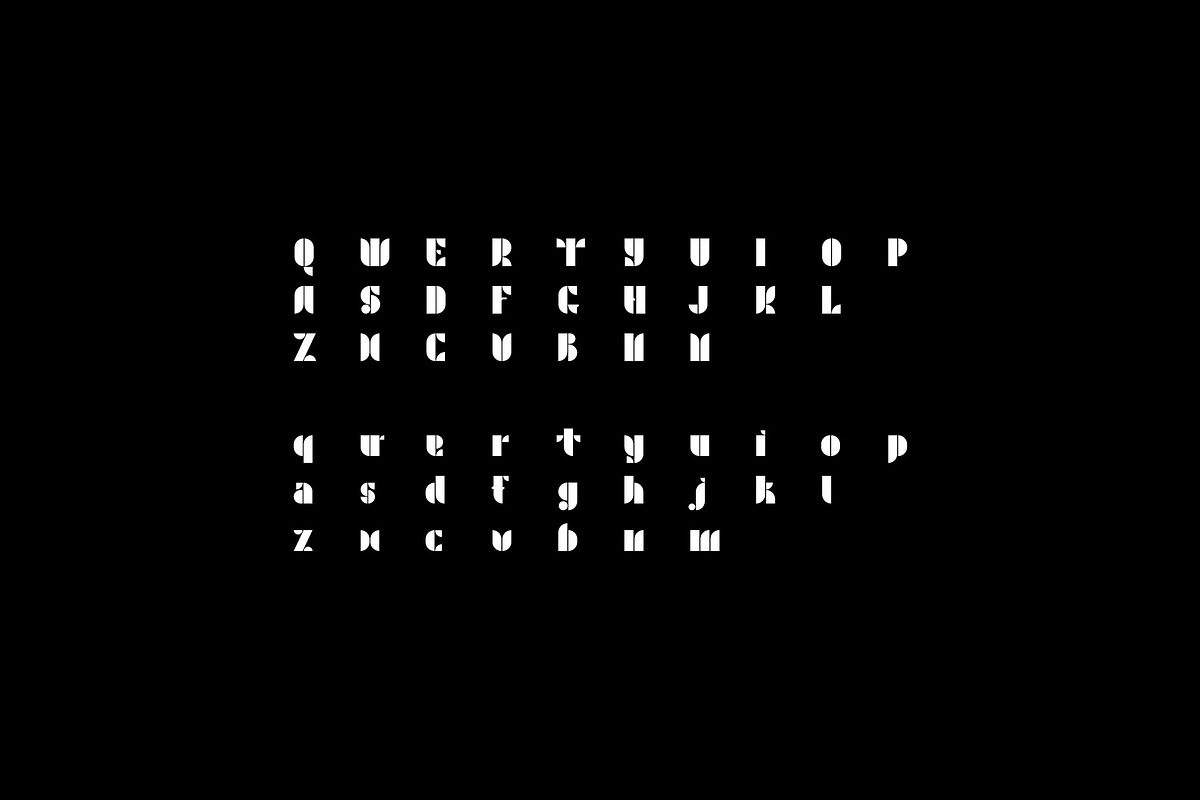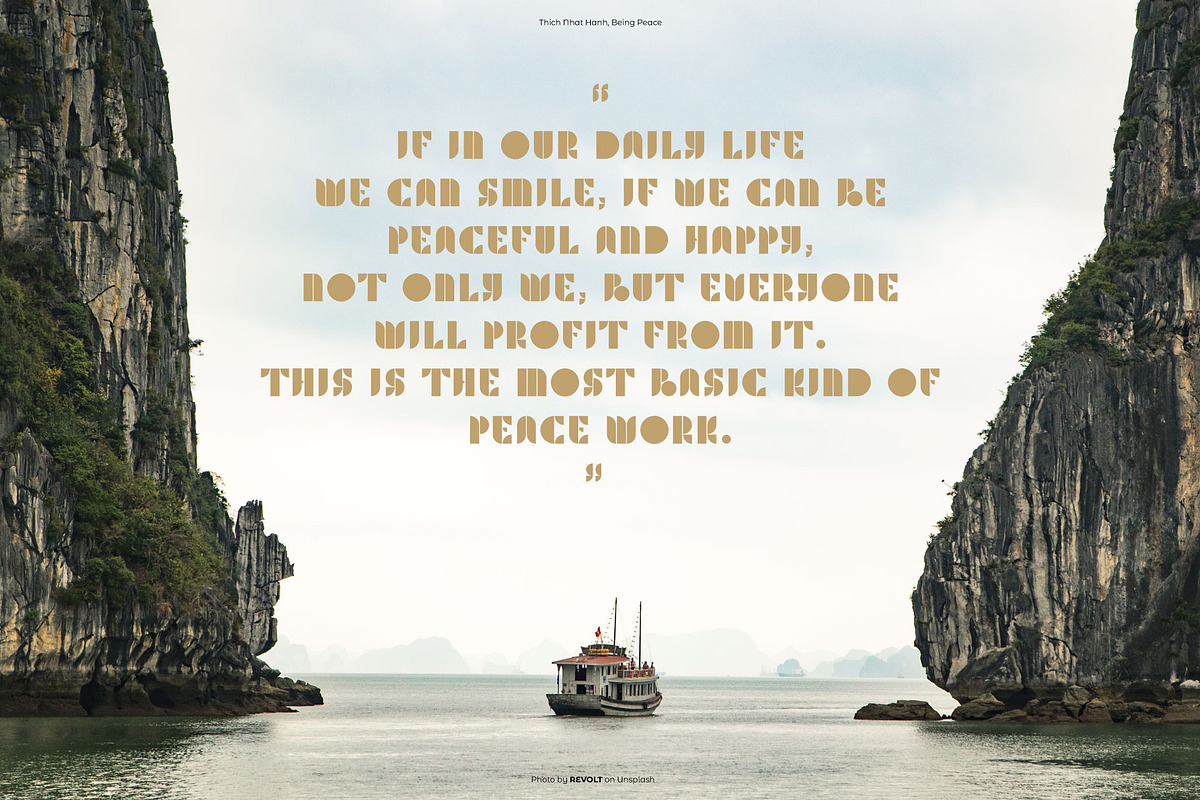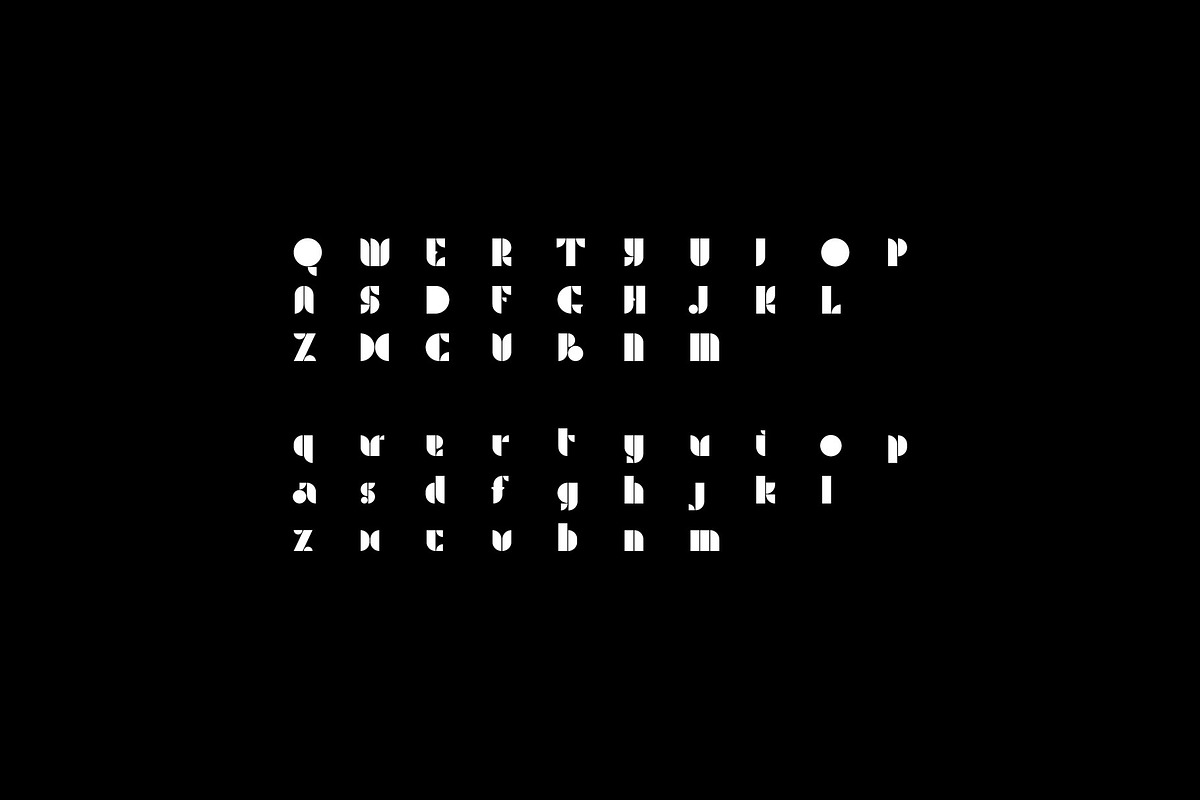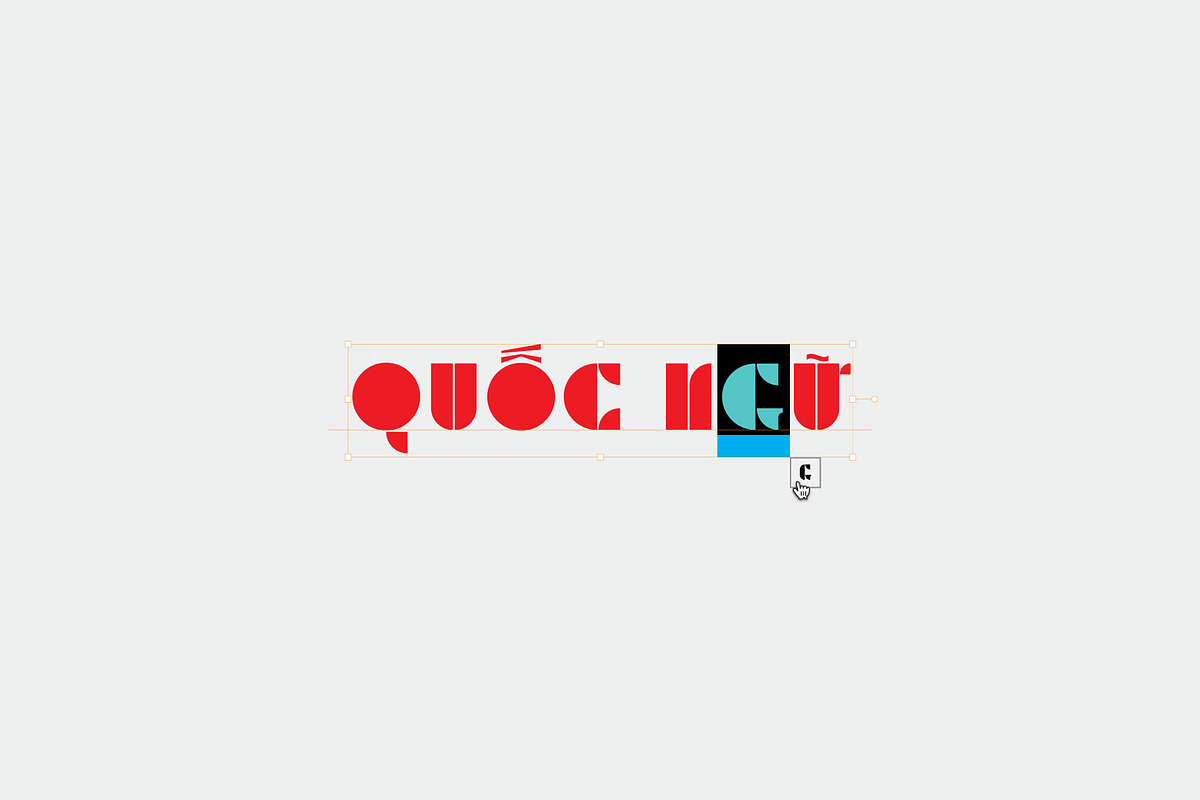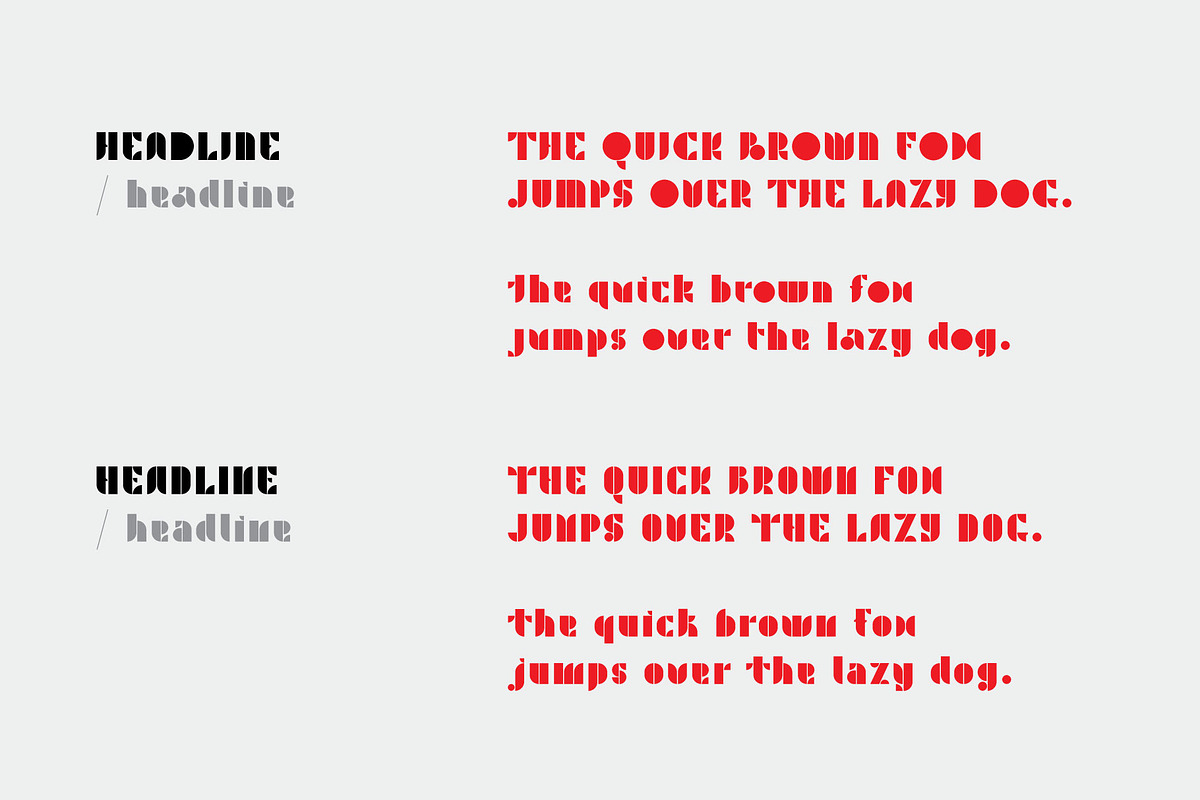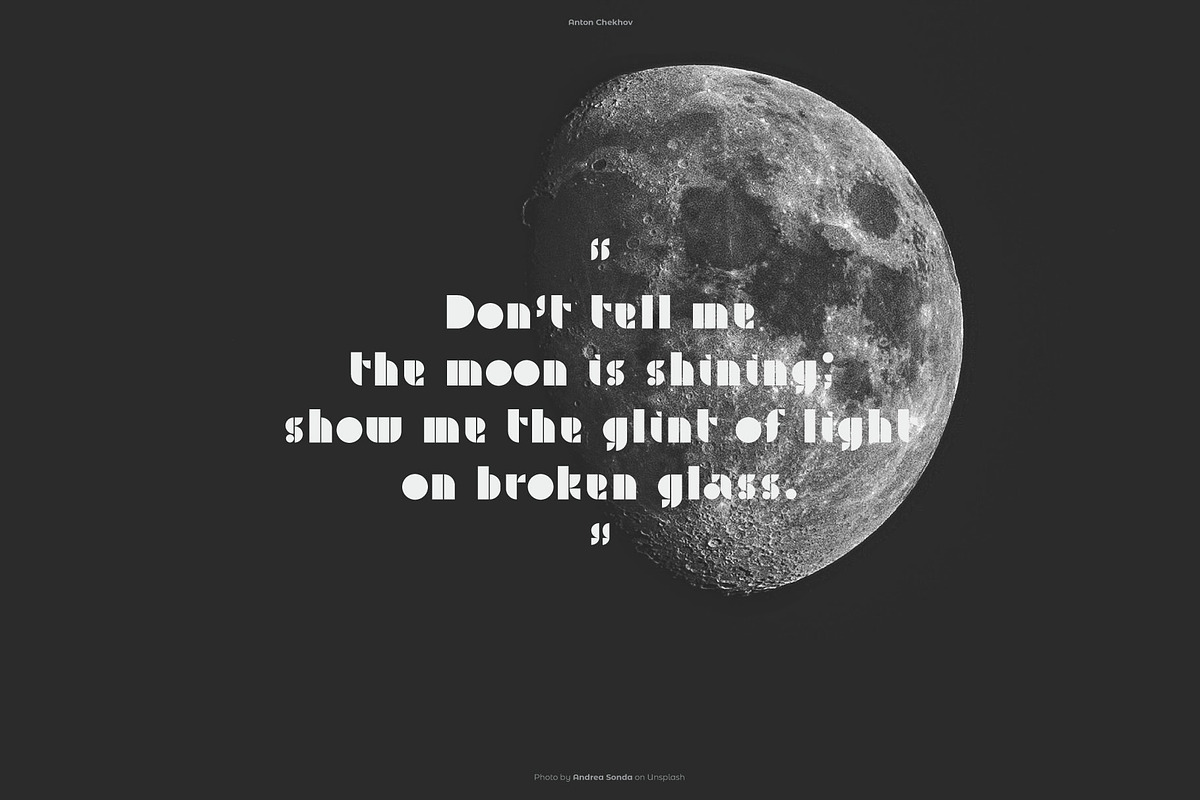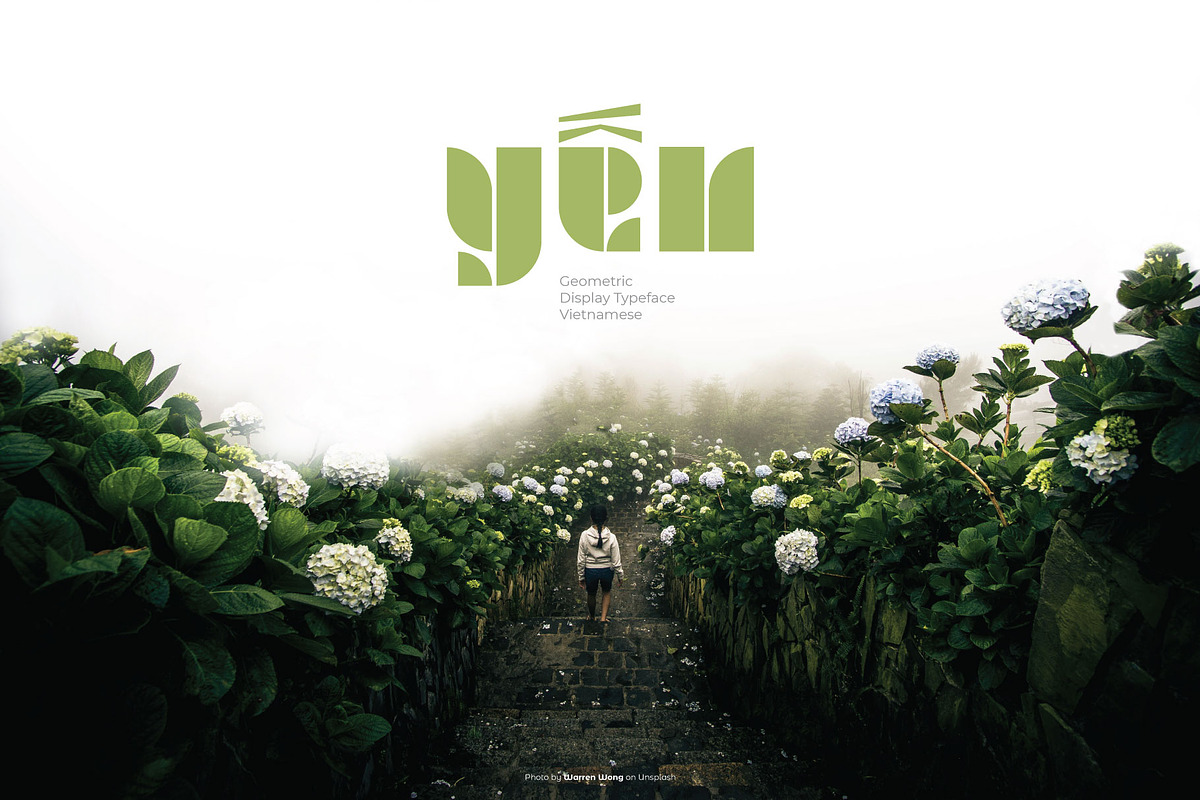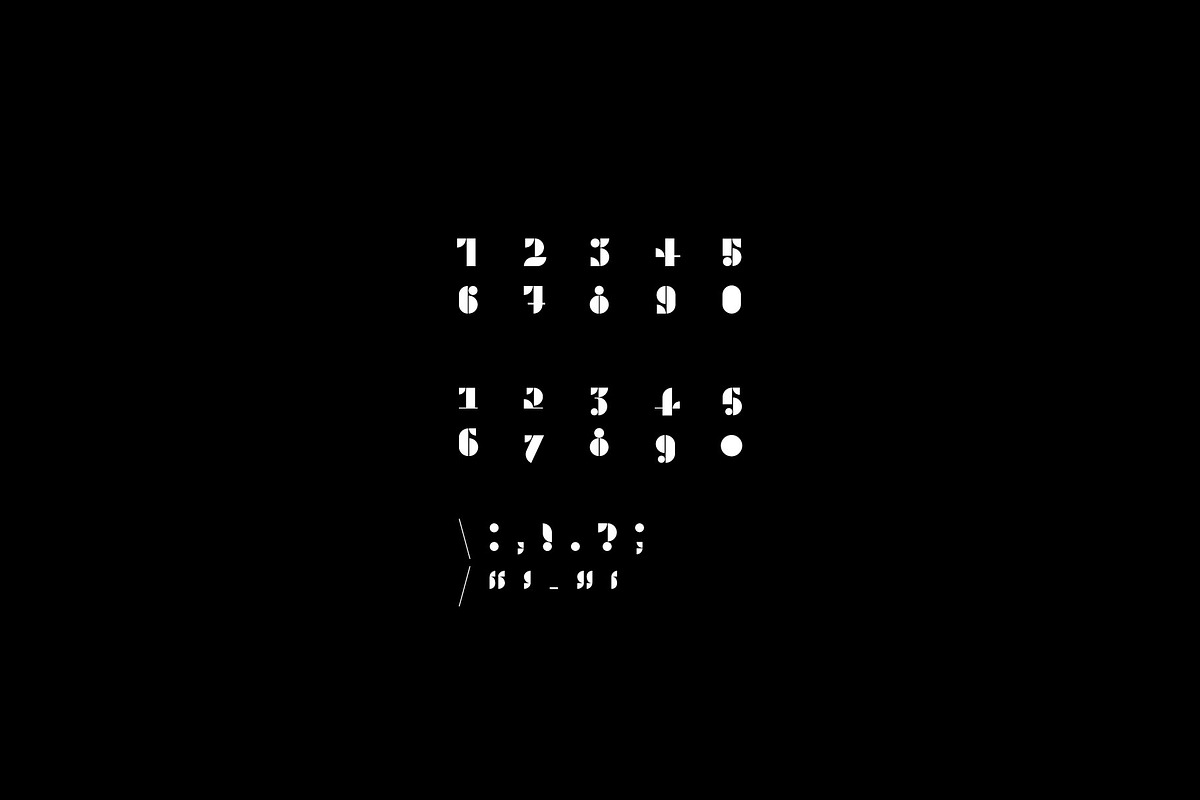
YEN Geometric Display Typeface
The Vietnamese language have been developed and transformed throughout every period of Vietnamese history. Nowadays, Vietnamese language has been completed and used all over S-shaped country, which is also known as “Quốc Ngữ” (National Language).
Being an unique language compared to other Asian countries which use non-Latin languages, “Quốc Ngữ” uses Latin characters including: a ă â b c d đ e ê g h i k l m n o ô ơ p q r s t u ư v x y combined with six tones comprising: Sắc (rising tone), Huyền (falling tone), Hỏi (Falling rising tone), Ngã (High rising tone), Nặng (dot tone), Ngang (flat tone).
By creating a new and distinctive appearance for Vietnamese characters, we got an idea to combine Asian hieroglyphs with Latin characters but not lose their origin. Inspired by Vietnamese conception of circle, considered as the sky and square as the ground, YEN typeface herein was created.